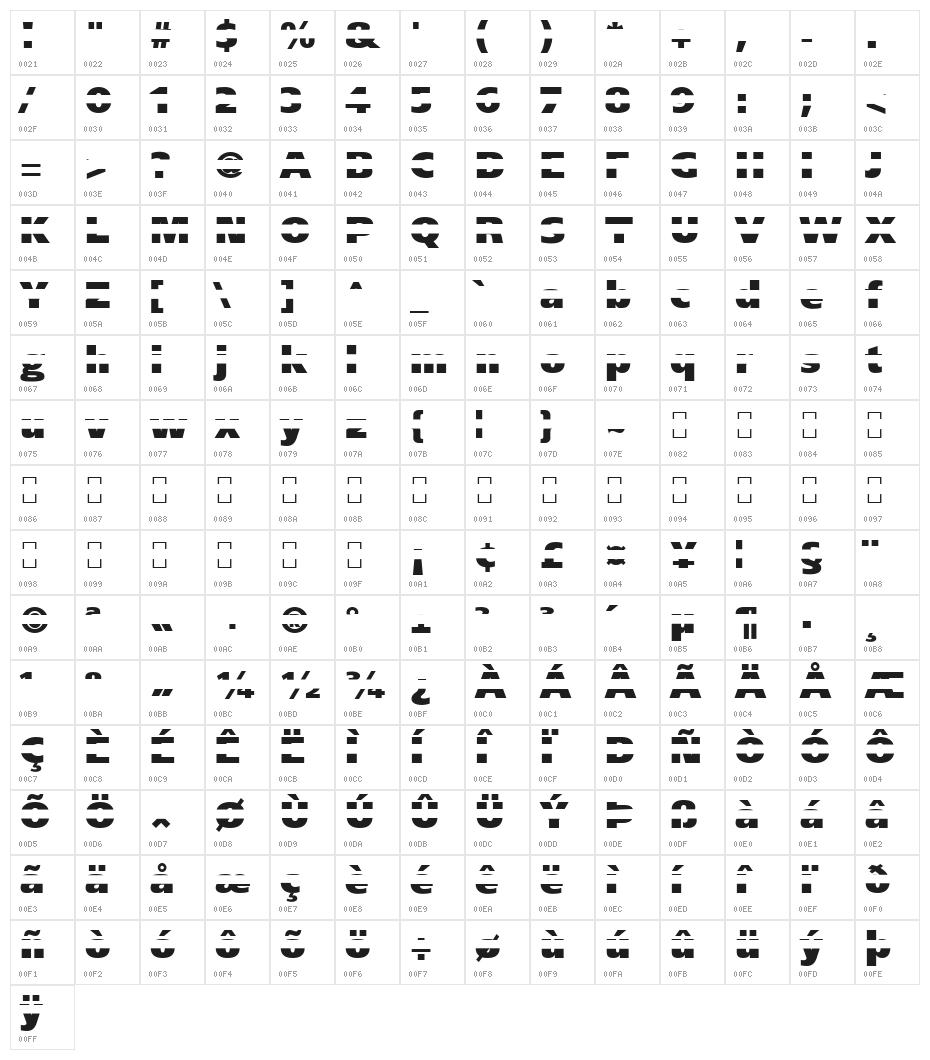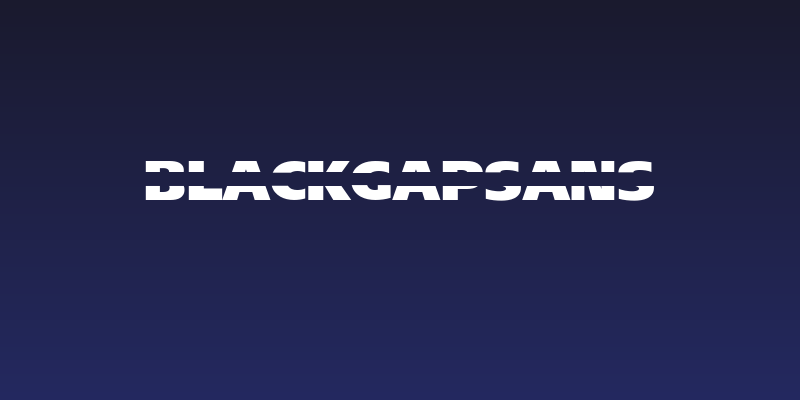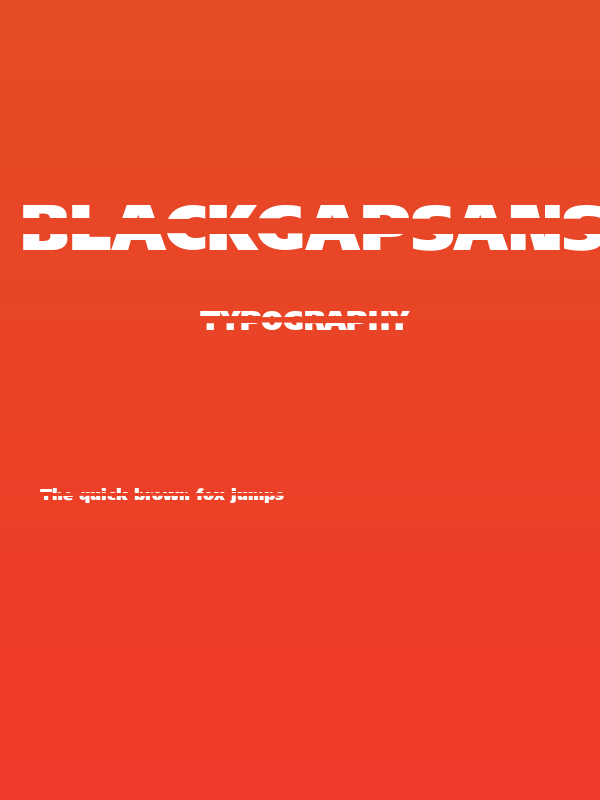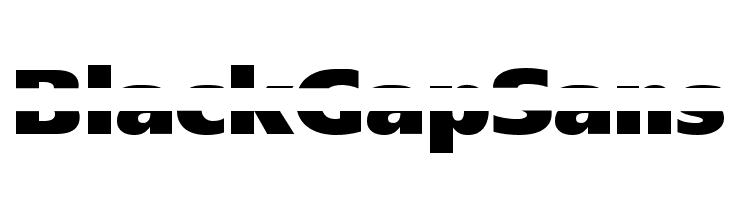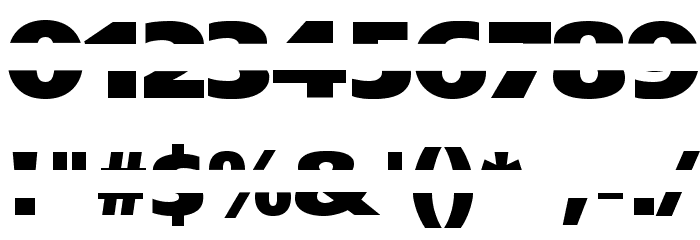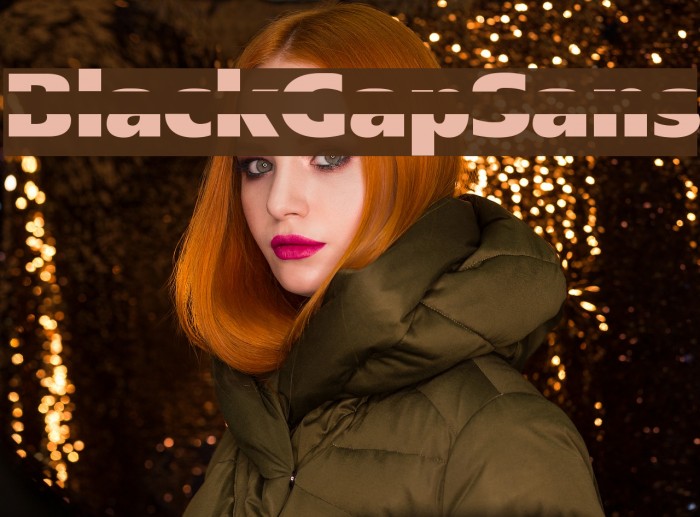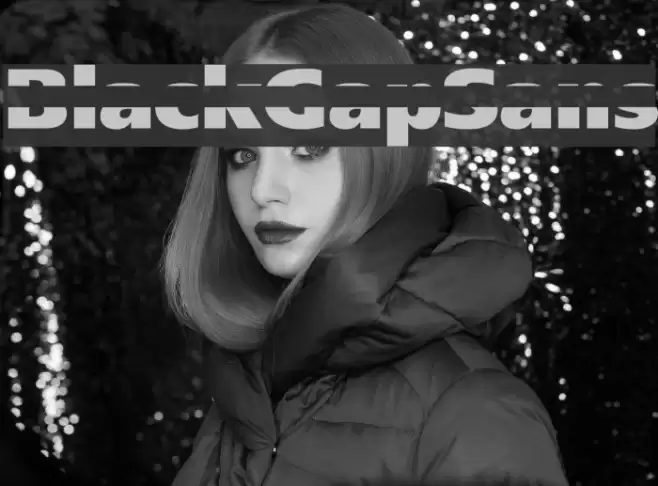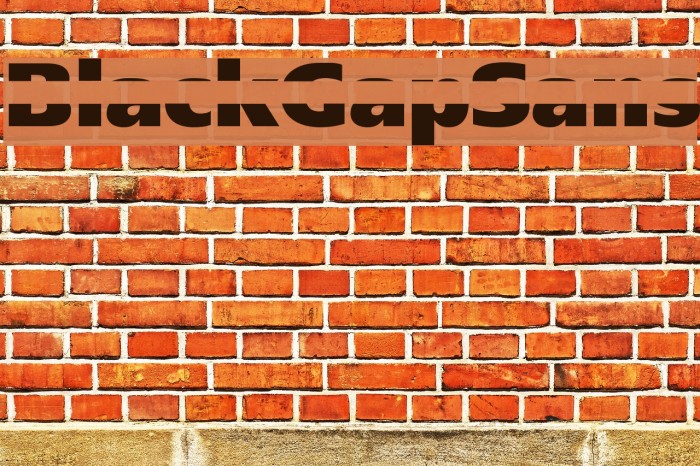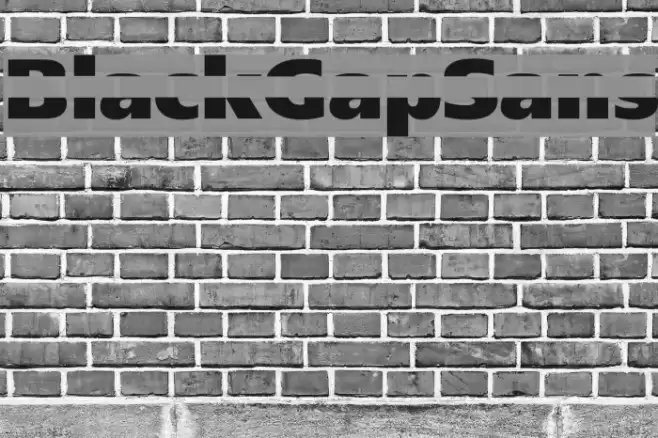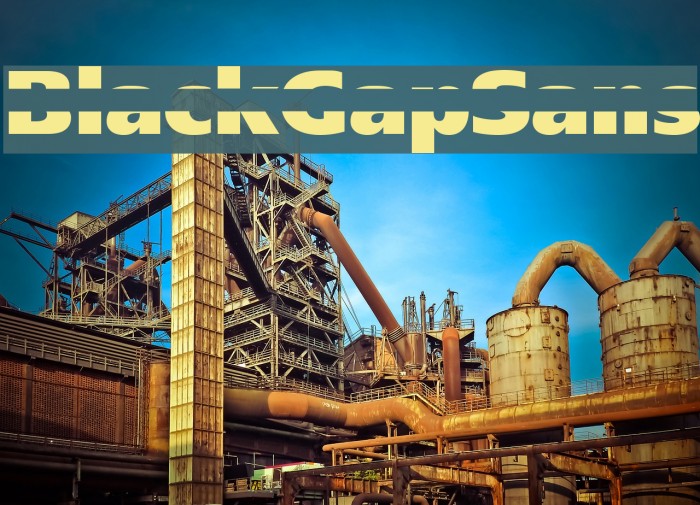
BlackGapSans Font
BlackGapSans Description
This font features a bold and striking design with a modern, sans-serif style. The characters are robust and heavy, creating a strong visual impact. The uppercase and lowercase letters maintain a consistent thickness, contributing to a uniform appearance. The numerals and special characters follow the same bold aesthetic, ensuring coherence across all glyphs. The font's design includes minimal contrast in stroke thickness, emphasizing its solid and powerful presence. The spacing between characters is tight, which enhances the compact and dense look of the text. This font is ideal for projects that require a commanding and contemporary typeface.
| Proposed Projects | Ideal for headlines, posters, branding, and any design requiring a bold statement. |